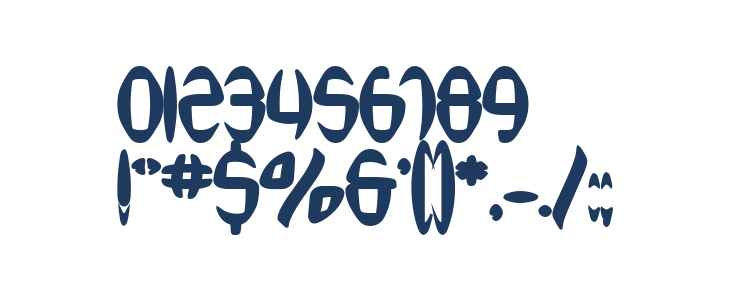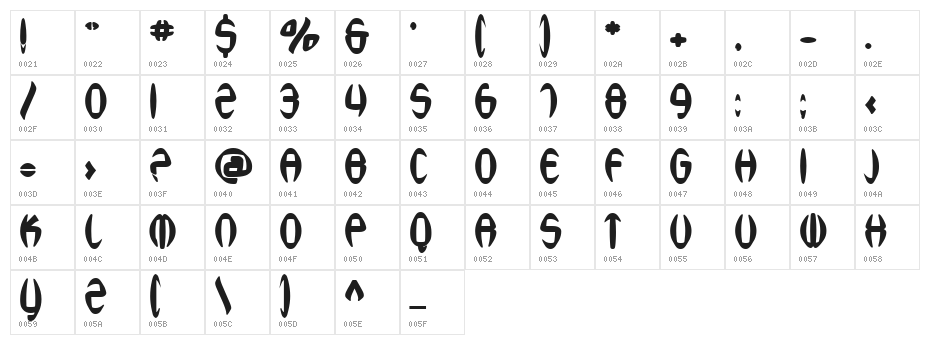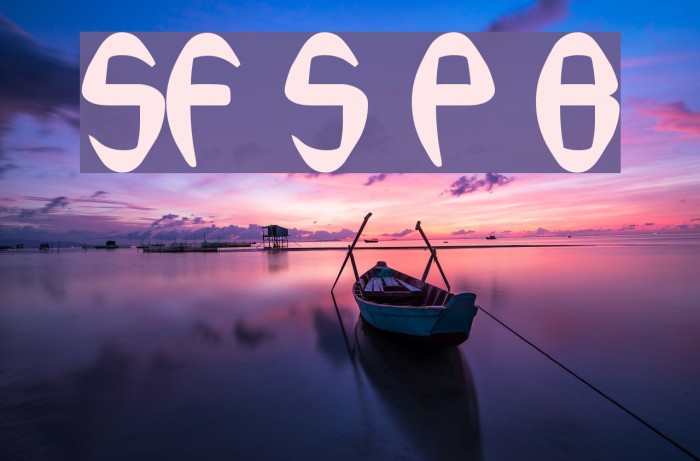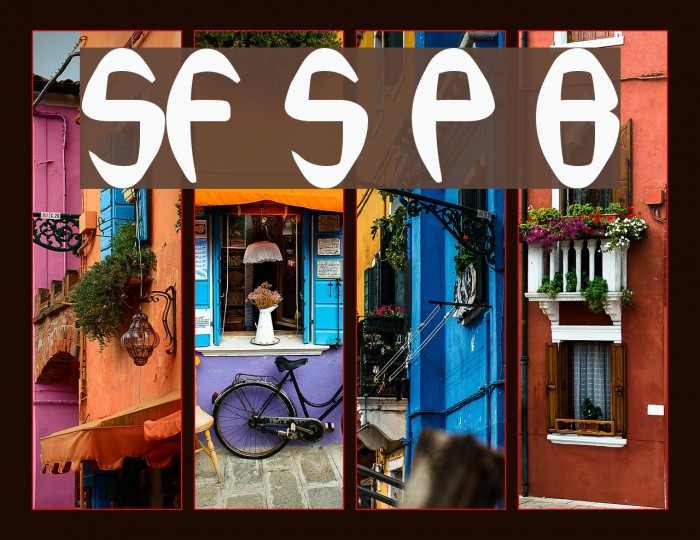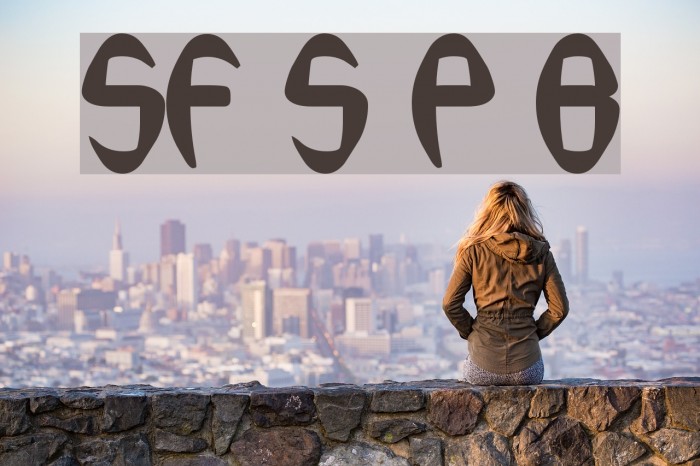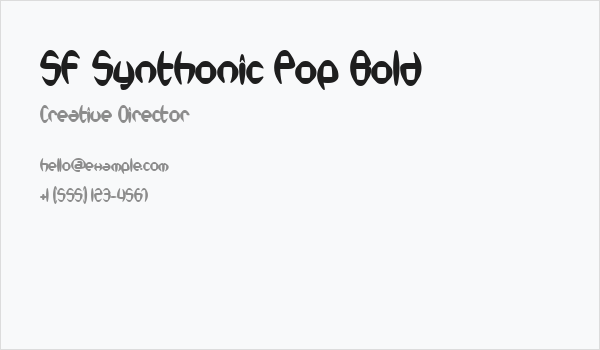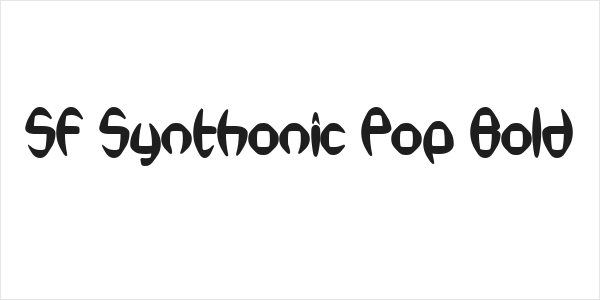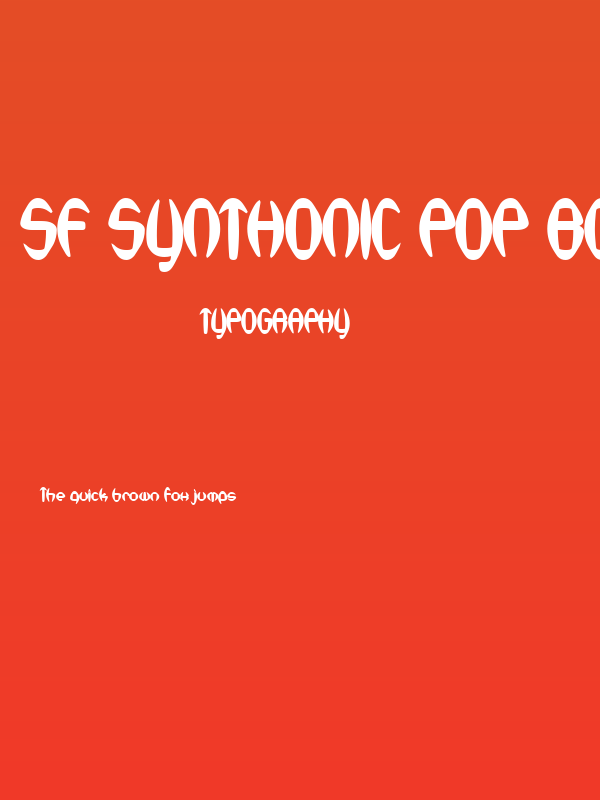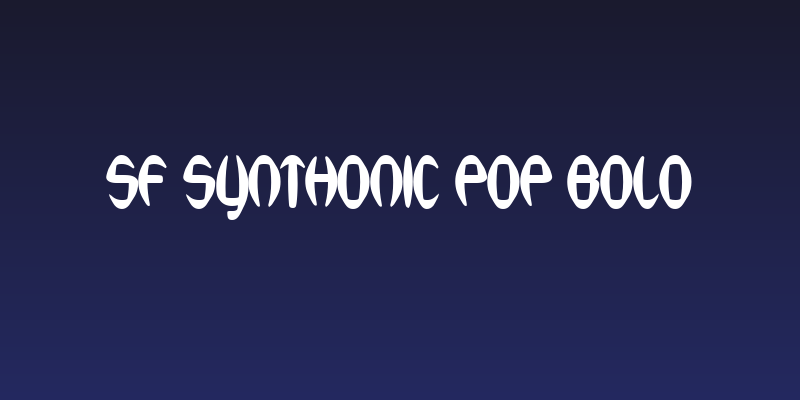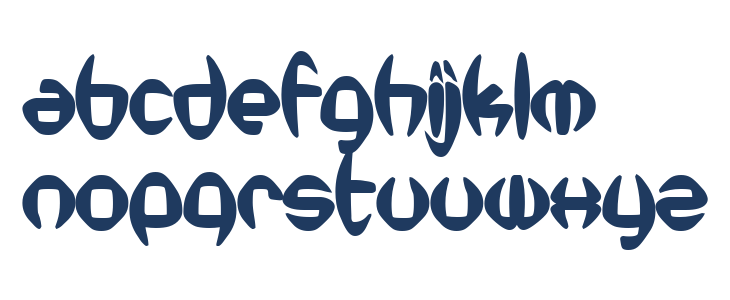
SF Synthonic Pop Bold Font
SF Synthonic Pop Bold Description
This font features a bold and futuristic design with a distinctively rounded and geometric appearance. The characters are crafted with a unique blend of sharp angles and smooth curves, creating a dynamic and energetic feel. The uppercase letters are particularly striking, with a consistent height and width that gives them a uniform look. The lowercase letters maintain the same boldness, with some characters featuring playful, unexpected twists. The numbers and special characters are equally bold and maintain the overall aesthetic, making them stand out. This font is perfect for projects that require a modern and edgy touch.
| Proposed Projects | Ideal for music album covers, tech branding, video game titles, and futuristic-themed posters. |